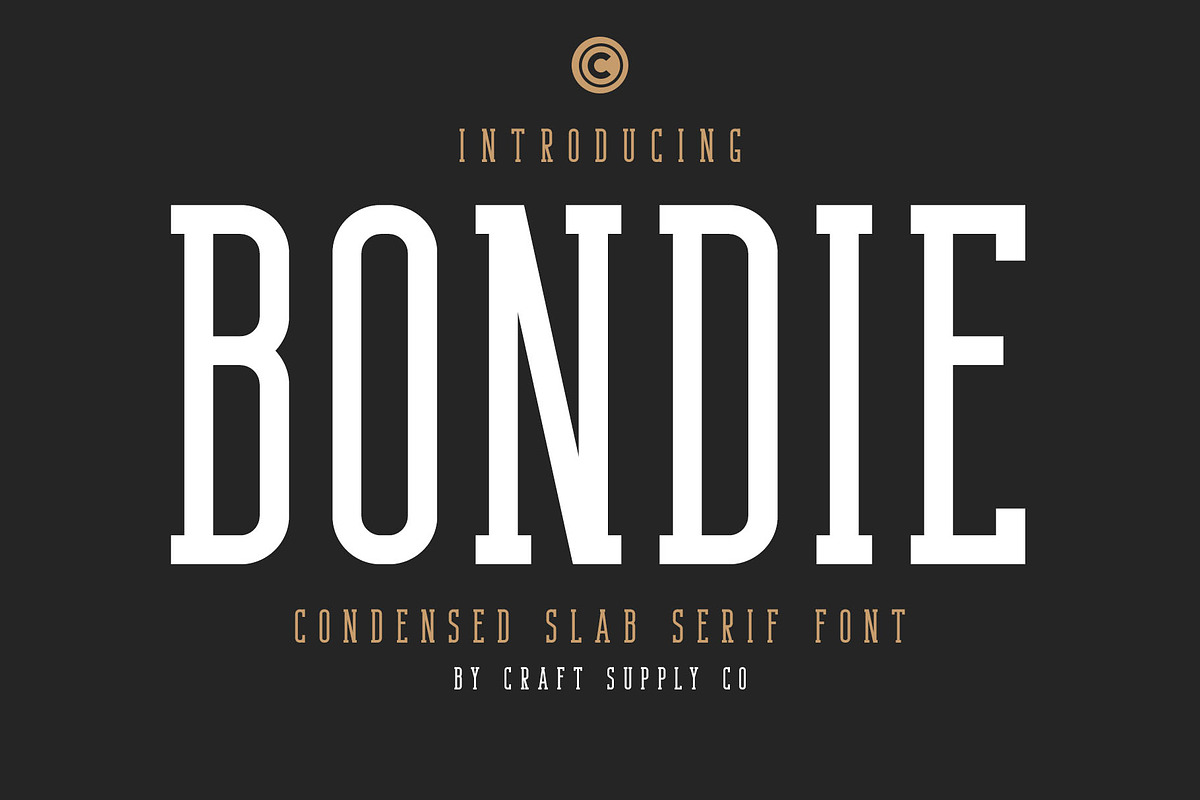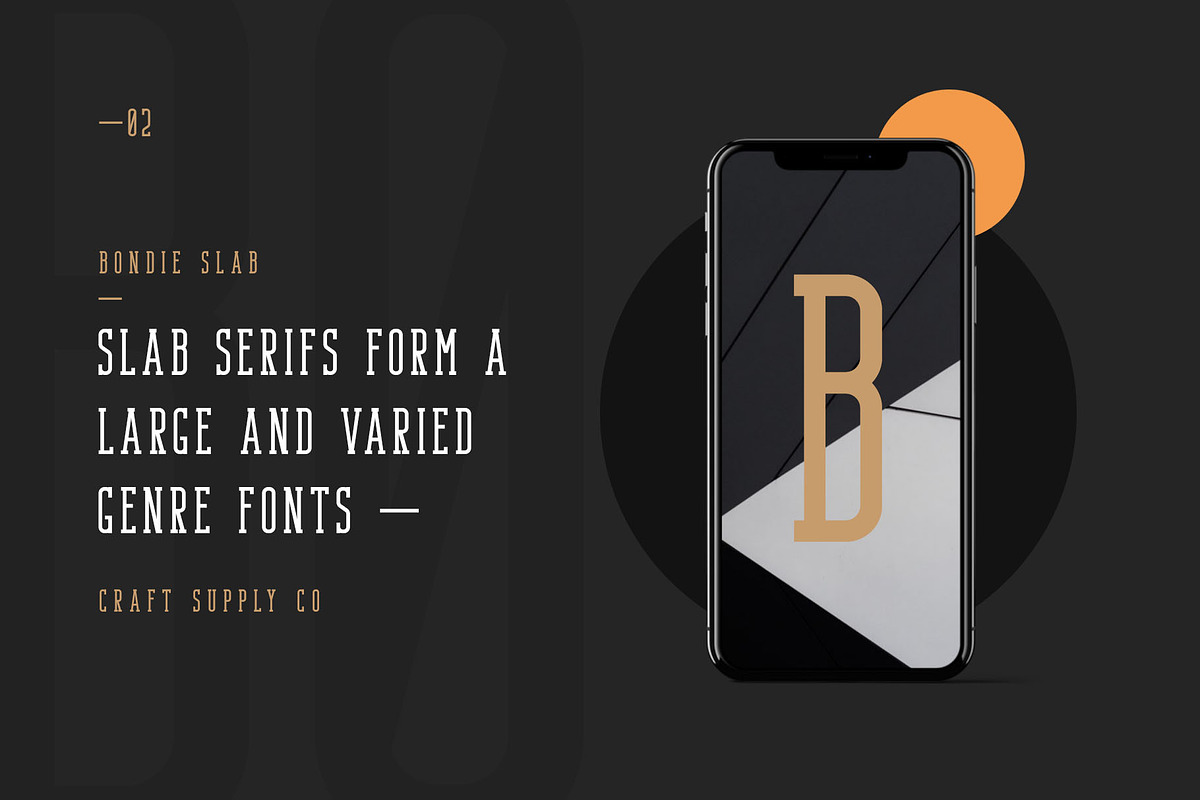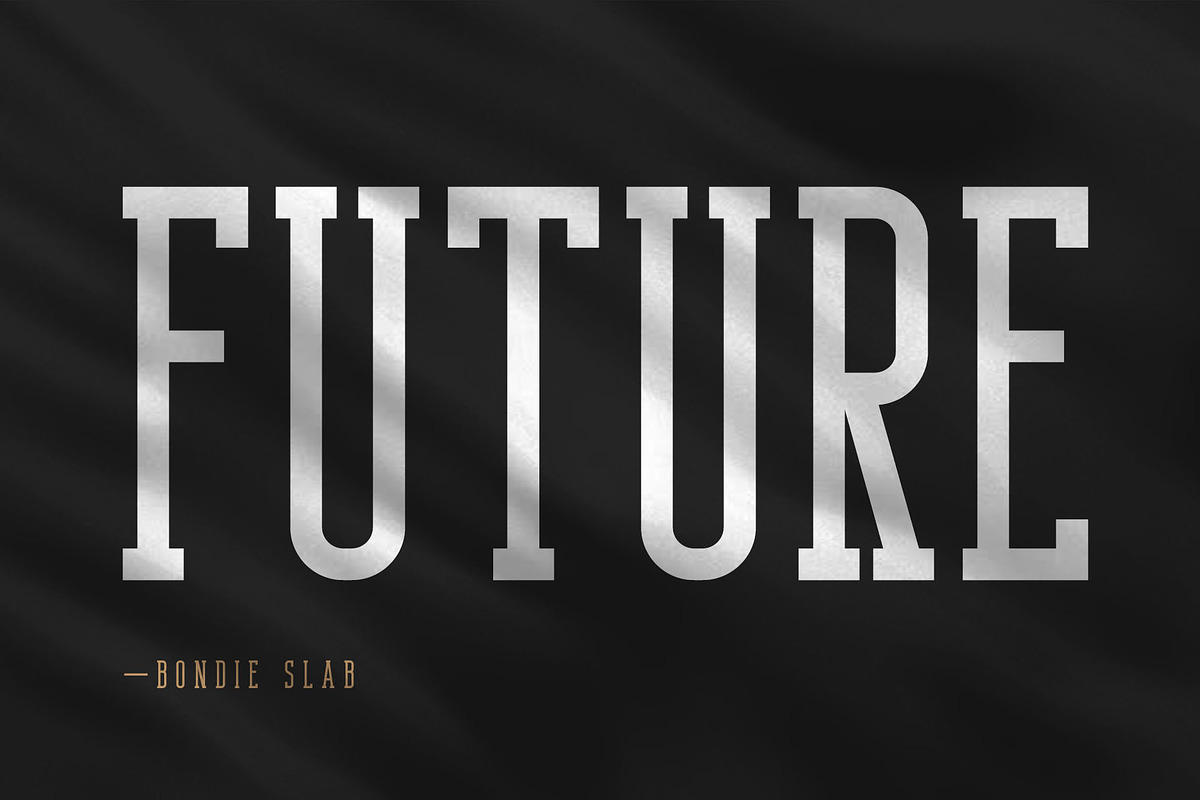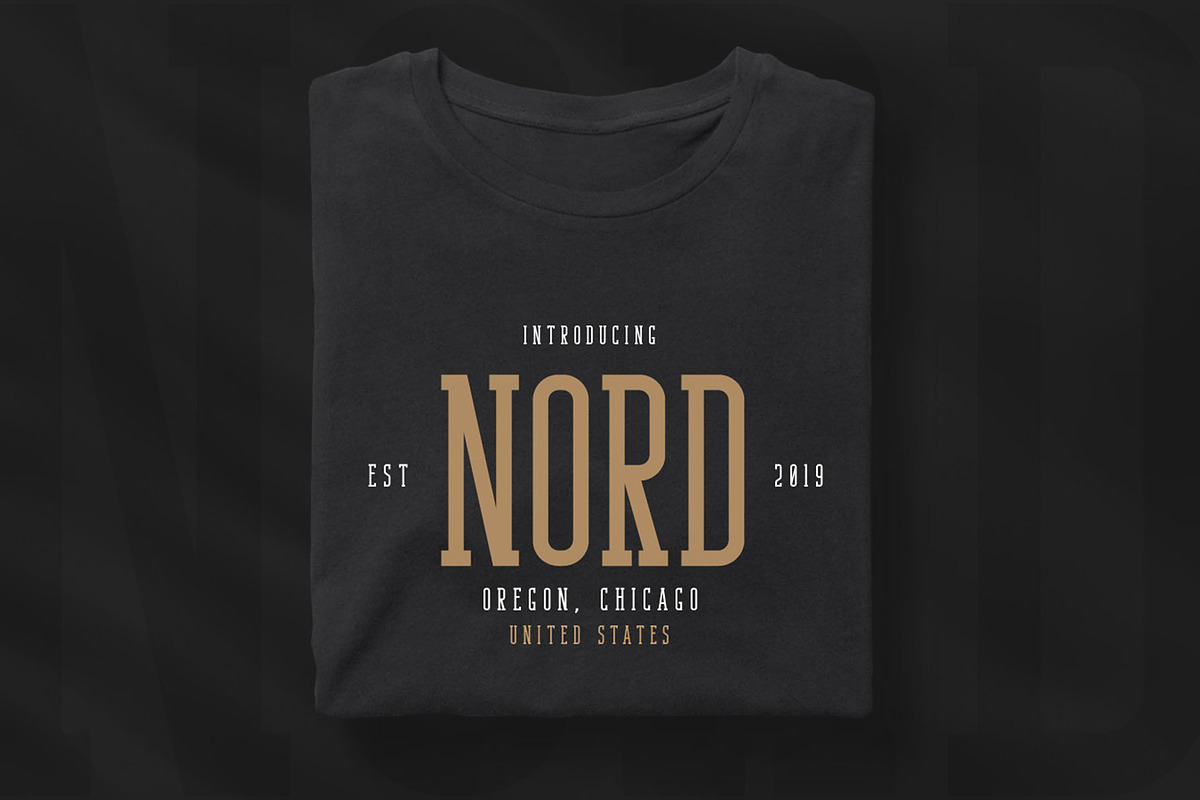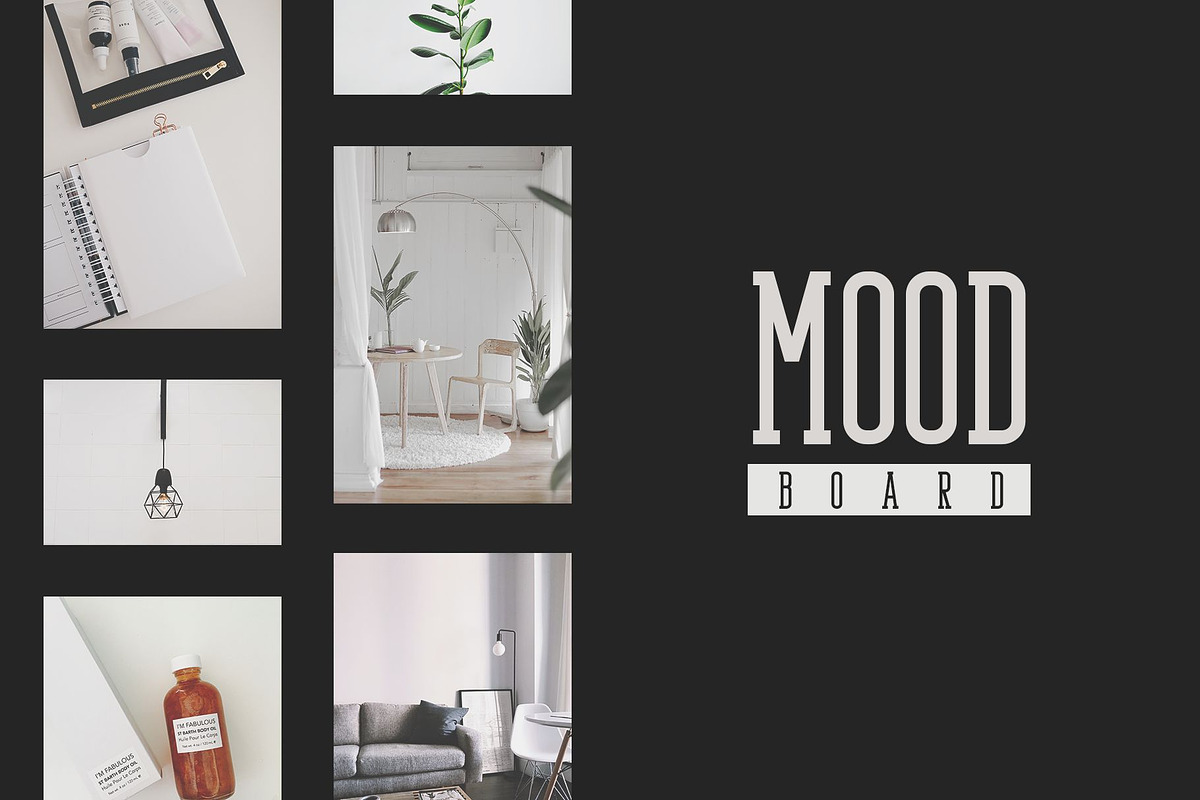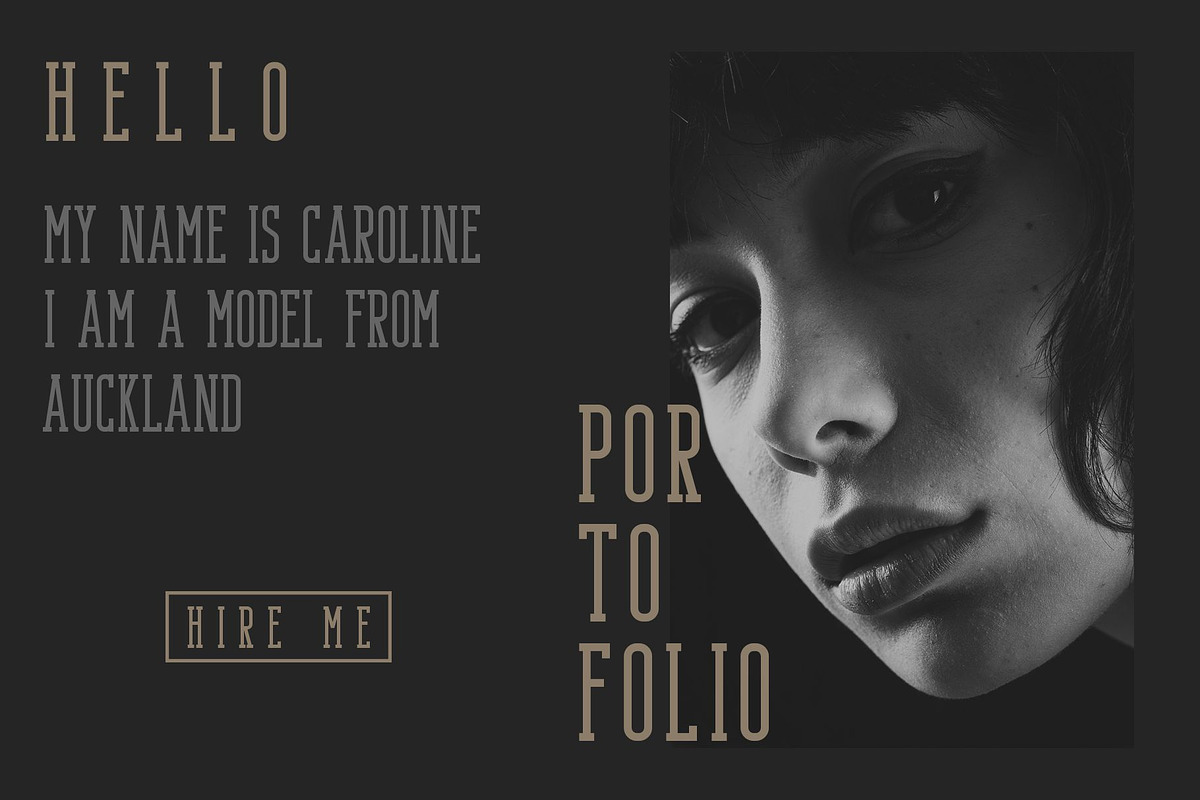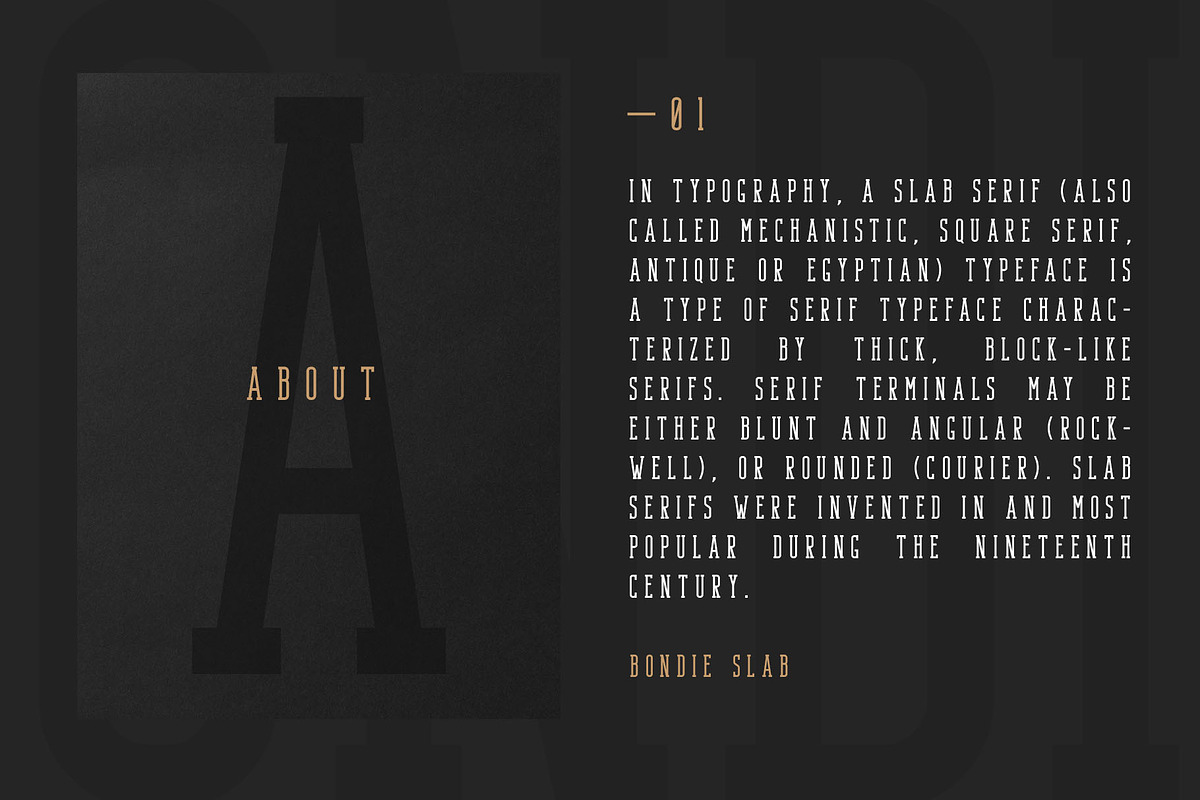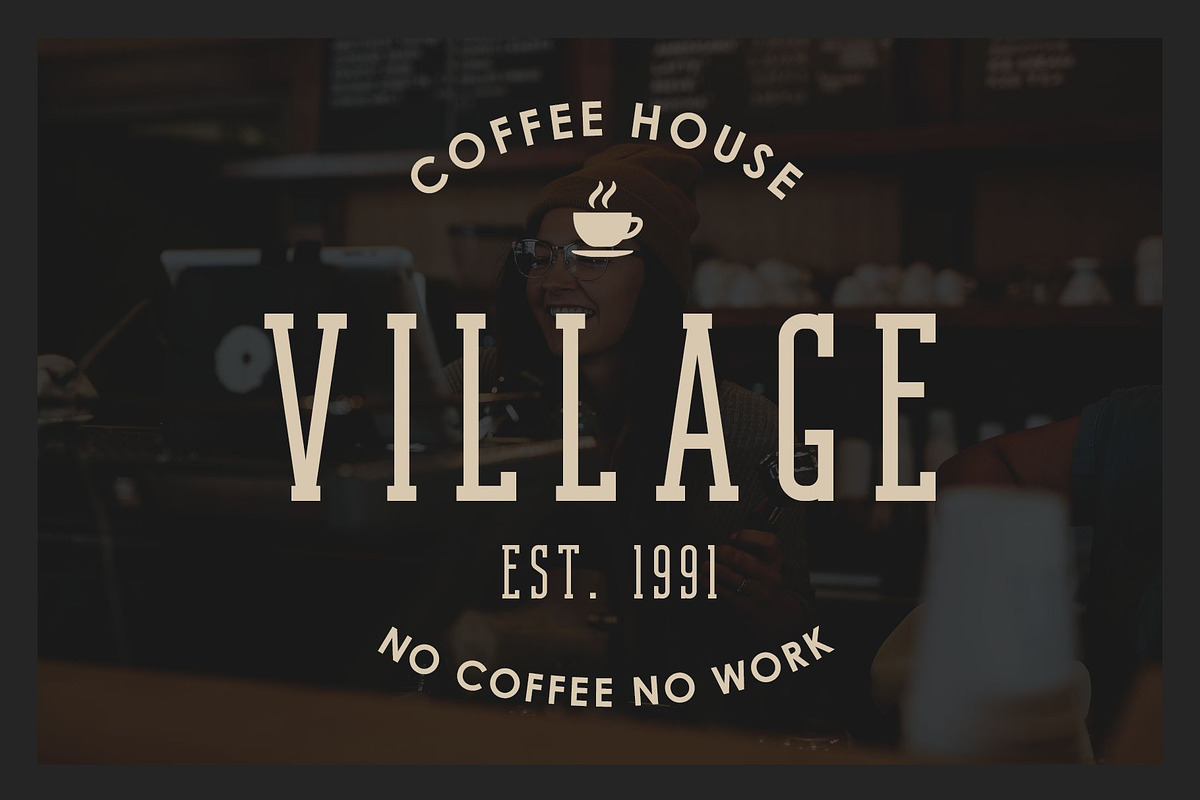
Bondie - Condensed Slab Serif Font
Introducing New Font : Bondie - Condensed Slab Serif Font
Bondie - Condensed Slab Serif Font is an Elegant Condensed - Condensed Slab serif with solid font files. it is based on the compact solid font, by combining a variety of styles. Suitable for Logo, greeting cards, quotes, posters, branding, name card, stationary, design title, blog header, art quote, typography
Bondie - Condensed Slab Serif Font also suitable for art, modern envelope lettering or book design, happening style like handdrawn design or watercolor design theme, craft design, any DIY project, book title, wedding font, pop vintage design, or any purpose to make our art/design project look pretty and trendy.
Why Bondie - Condensed Slab Serif Font is worth a look
Bondie - Condensed Slab Serif Font by Craft Supply Co. fits naturally into Branding, posters, packaging, typography.